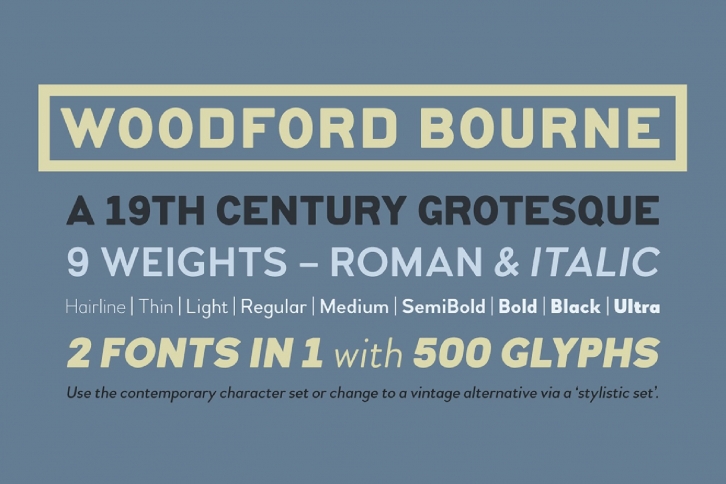
Woodford Bourne is a vintage grotesque typeface inspired by 19th century type design. This font family is a tribute to the historic stone cast type in the building façades of the former Woodford, Bourne & Co. in Cork City, Ireland. For many years I had admired the type's simplicity and strength, so I decided to faithfully reproduce those letters and expand them to a fully working font with 500 glyphs per case.
I see it as a solid, reliable "workhorse" font that reproduces well at all sizes... it's also great for branding and identities!
- Woodford Bourne is a vintage geometric sans, optically adjusted for improved aesthetics and legibility
- 2 FONTS IN 1 – Use contemporary character set, or switch to vintage style with stylistic sets
- 9 Weights in Roman and Italic:
- Hairline | Thin | Light | Regular | Medium | SemiBold | Bold | Black | Ultra
- Full European character set
- 500 glyphs per case